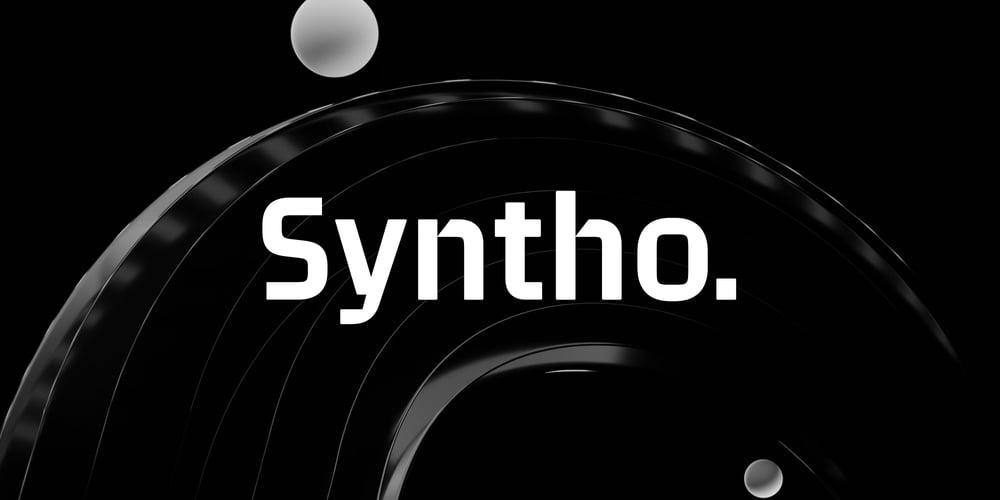
Syntho Font Family was designed by Gaspar Muñoz and published by Gspr one. Syntho contains 19 styles and family package options. Syntho is a modular typeface with 18 variants and a Variable Font. Its structure is geometric and modular, but its proportions resemble those of classic grotesque typefaces, giving it a familiar feel to the designer. It also includes two subfamilies, 200 and 300, which are expansions of the typeface in width, providing greater possibilities for the designer in any project.